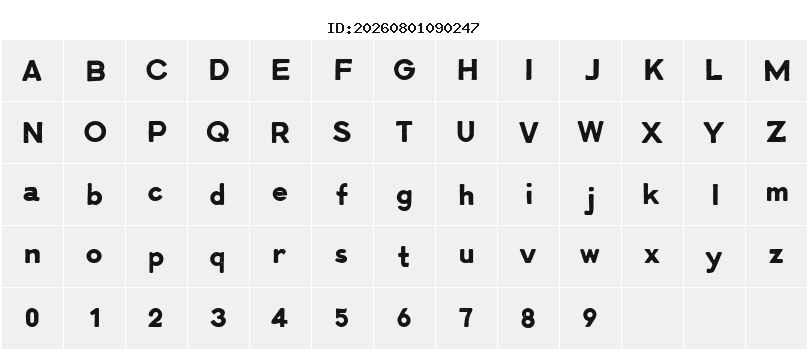
• Font Name: LLCharlotte
About LLCharlotte.ttf
LLCharlotte.ttf is a modern, elegant sans-serif font designed for ultimate readability and visual harmony. Perfect for branding, headlines, web design, and print materials.